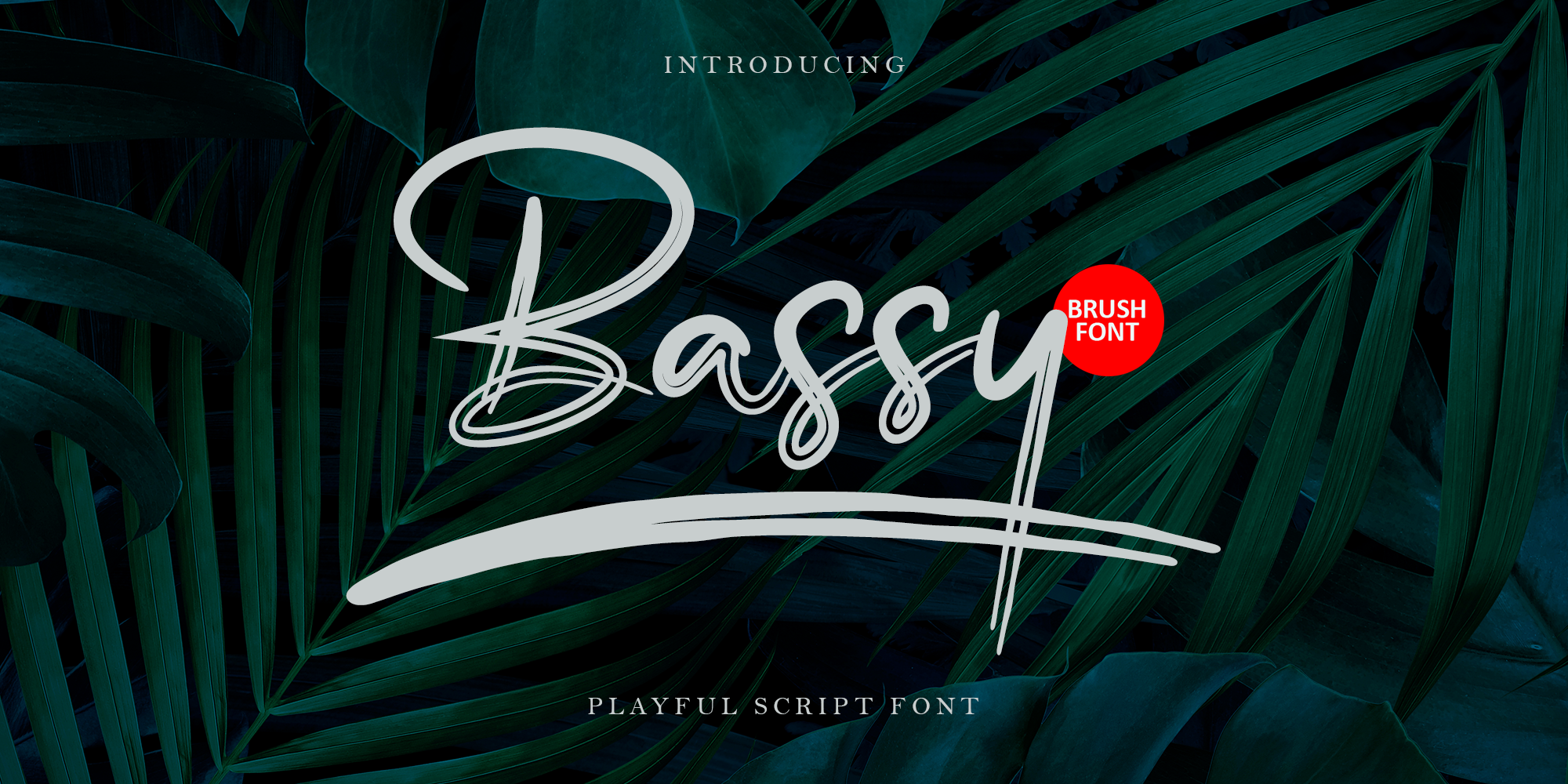
Bassy Font is perfect for music industry branding, entertainment posters, nightclub promotions, album cover designs, concert flyers, DJ logos, sound equipment packaging, and creative advertising campaigns. This dynamic typeface excels in both digital and print applications where energy, rhythm, and bold visual impact are essential for capturing audience attention.
What makes Bassy Font exciting is its powerful combination of rhythmic flow and bold presence. The carefully designed letterforms feature strong, confident strokes with subtle curves that mirror the pulsating energy of bass lines and musical beats. Its distinctive character makes it ideal for brands in the entertainment industry seeking to establish a memorable, energetic identity. The font's ability to convey both power and creativity sets it apart in music-related design projects.
The Bassy Font family includes multiple variations: Regular, Bold, Light, Condensed, Extended, and Outline versions. Each family member maintains the rhythmic design essence while offering different levels of visual intensity and spacing options. The comprehensive character set supports multiple languages and includes special music symbols, decorative elements, and stylistic alternates that enhance creative possibilities for entertainment-focused designs.
Whether you're developing music brand identities, creating promotional materials, or designing concert graphics, Bassy Font Free Download delivers the high-energy typography solution that entertainment industry professionals need. Its bold personality and rhythmic character make it an essential asset for any designer working in music, nightlife, or entertainment sectors seeking impactful visual communication.